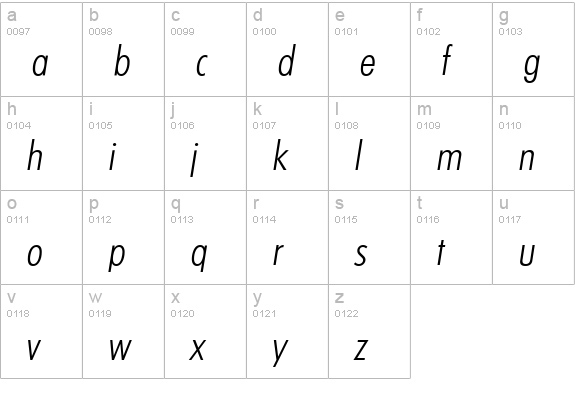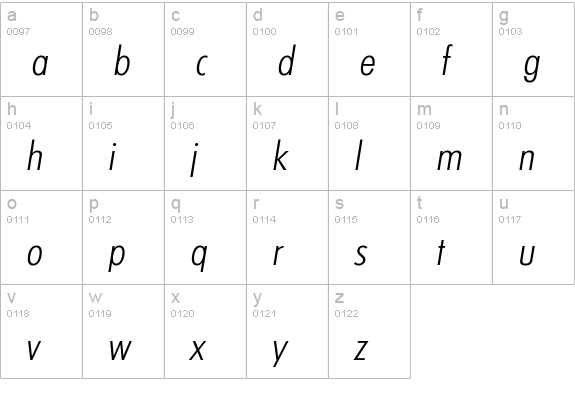
LimerickCdSerial-Light-Italic is a refined, elegant, italic variant in the LimerickCdSerial typeface family \xE2\x80\x94 well suited to elegant body text, refined sub-headings, and luxury branding.
LimerickCdSerial-Light-Italic is a sleek and modern font that exudes elegance and sophistication. Its light and italic design adds a touch of uniqueness to any project, making it perfect for branding, logos, invitations, and more. This versatile font is perfect for both digital and print designs, giving your projects a stylish and professional look. Best of all, LimerickCdSerial-Light-Italic is available for free download at FontsMarket.com. So you can easily access this high-quality font without any cost. Don't miss out on this amazing opportunity to enhance your designs with LimerickCdSerial-Light-Italic!